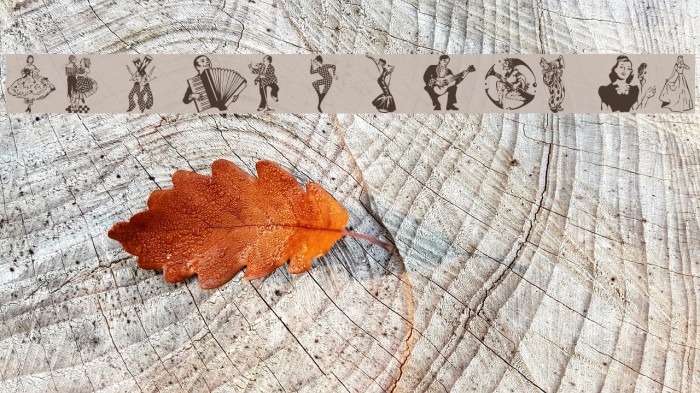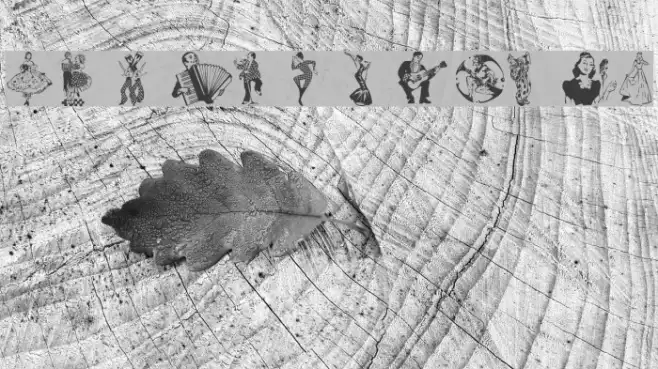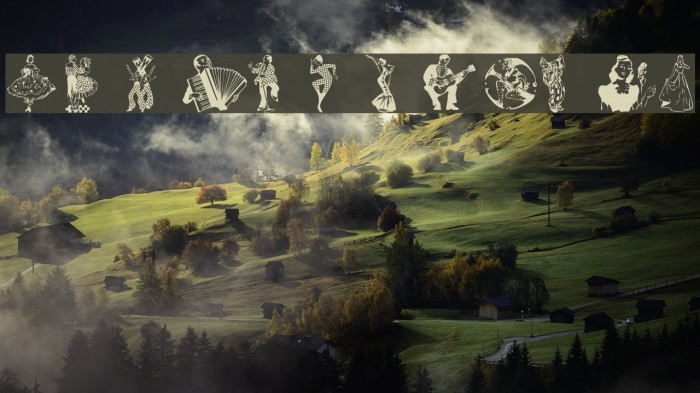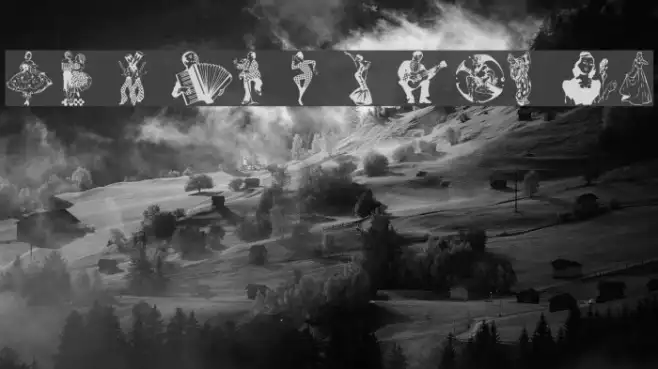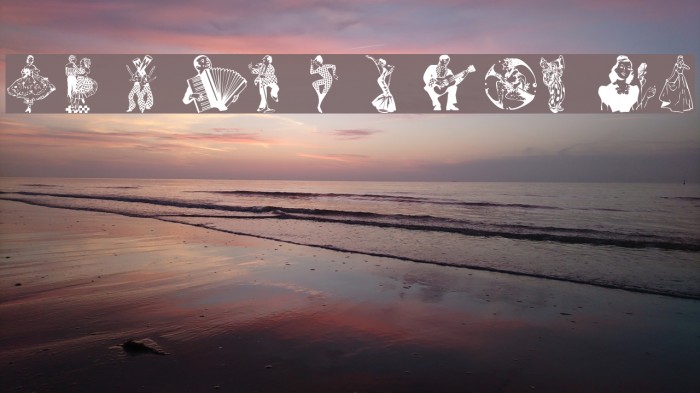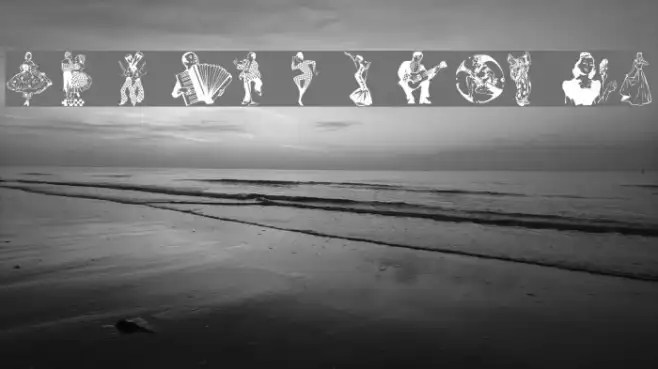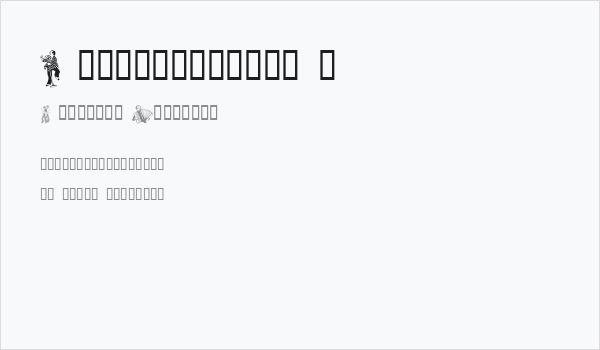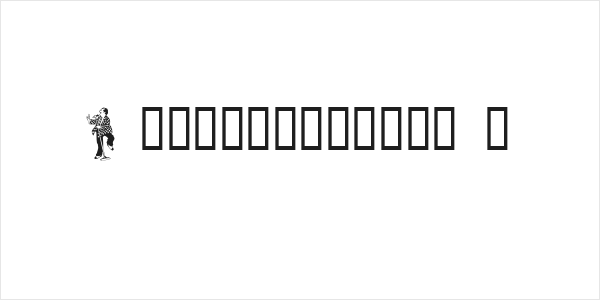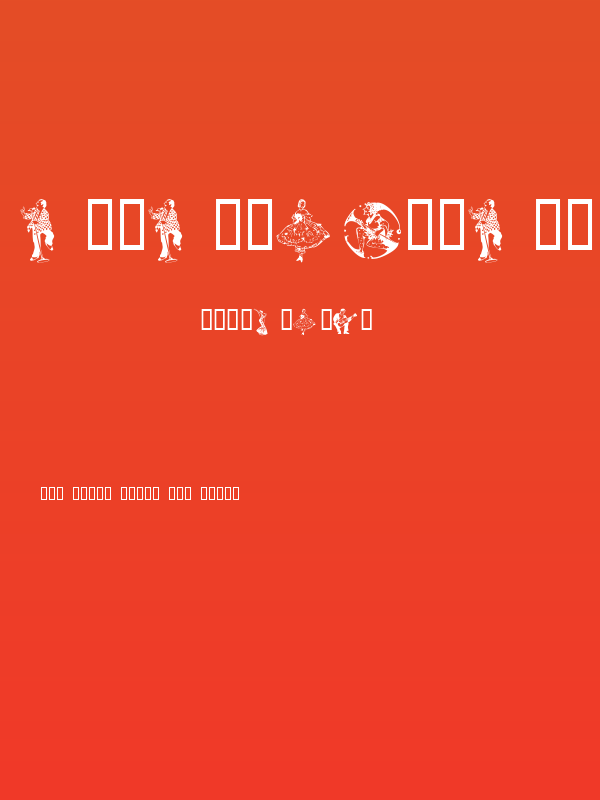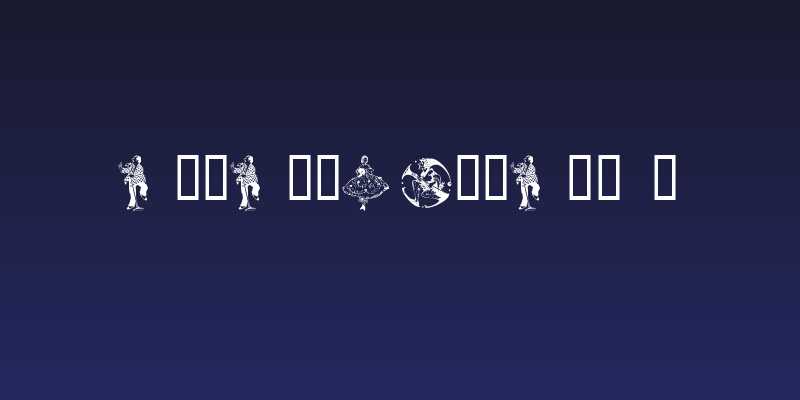
Entertainment 1 Font
Entertainment 1 Description
A decorative display font featuring detailed illustrations of entertainers and performers, such as dancers, musicians, and actors, used as glyphs for each character. The font is highly pictorial and not intended for standard text usage.
| Overall Style | Decorative, Thematic, Playful |
| Use Case | Logos, Headlines, Themed graphics |
| Proposed Projects | Event posters, themed invitations, party flyers, entertainment branding, novelty projects. |